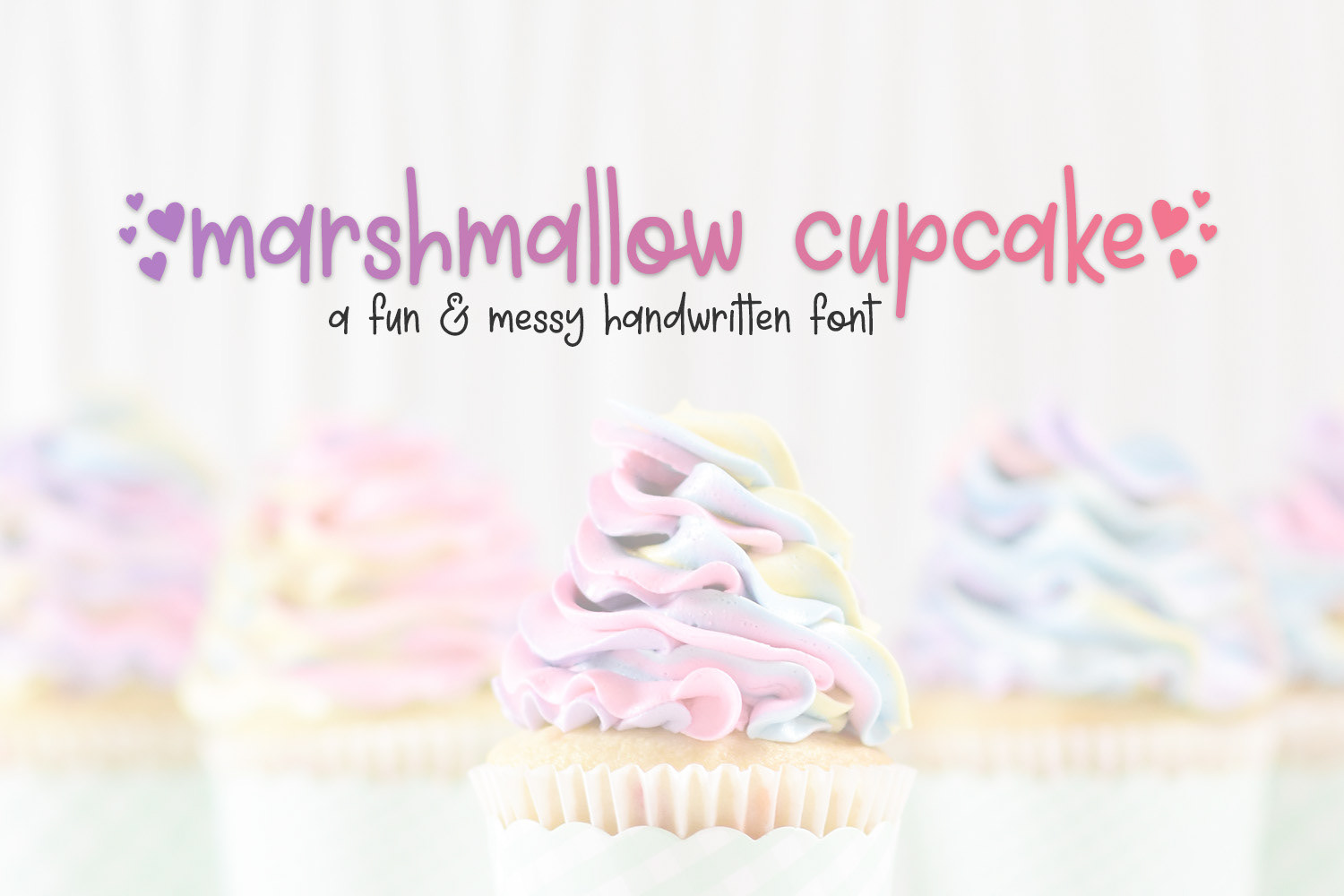
Marshmallow Cupcake, a whimsical, messy, handwritten font created with love and ligatures! A smooth font perfect for apparel, invitations, signs and much more.